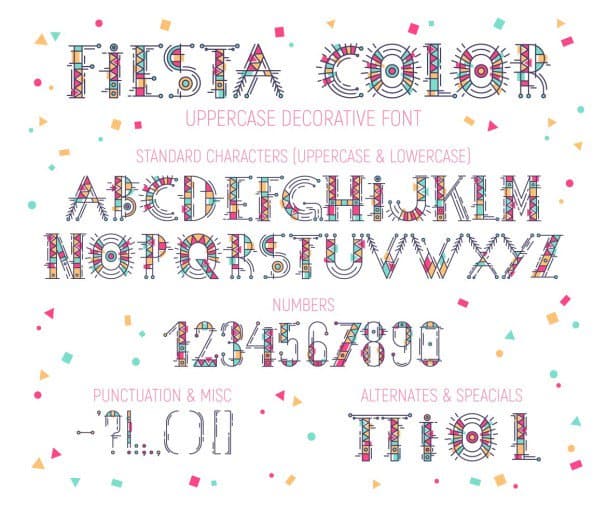
Introduce a myriad of colors into your designs with the vibrant and festive Fiesta Color Font.
Introducing the Fiesta Color Font
Ever wanted to add a splash of color to your designs? The Fiesta Color Font is designed exactly for that!
A Versatile Font for All Your Colorful Designs
Fiesta Color Font is a versatile, vibrant, and unique font that brings the fun and festive aura of a party to your design projects. Whether you’re designing invitations, flyers, or fun social media posts, Fiesta Color Font has got you covered. Its high contrast and playful appeal make it stand out, ensuring your project’s impact on your audience.
Why Choose Fiesta Color Font?
Colorful: Breathe life into your designs with a touch of color. Fiesta Color Font isn’t just black and white, it’s a riot of colors!
Playful & Fun: Crafted with love and fun, Fiesta Color Font brings a playful charm to your designs, ensuring they resonate with viewers.
Versatile: Whether you need to design party invitations or a vibrant web banner, this colorful font is fitted for all contexts and medium.
Fiesta Color Font isn’t like any other font. It’s a party in every letter!